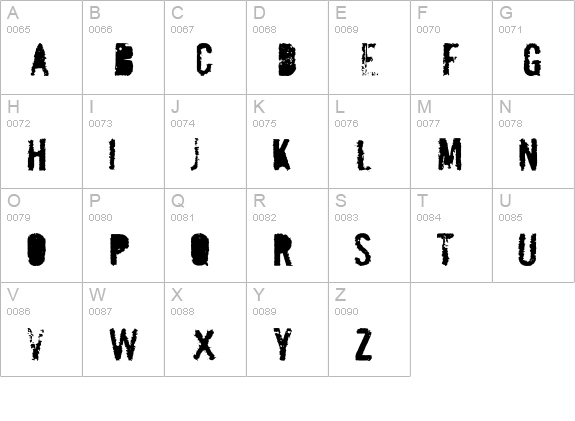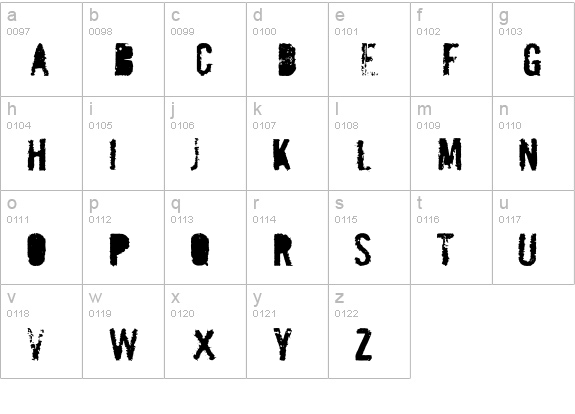
Introducing MailBomb font, a powerful and dynamic typeface that will explode your designs with creativity and impact. This font is the perfect choice for those looking to make a bold statement and leave a lasting impression. With its explosive letterforms and sharp edges, MailBomb font captures attention and demands to be noticed. Whether you're designing a poster, a logo, or a website, this font will bring an explosive energy that will captivate your audience. What makes MailBomb font even more exciting is that it is not only visually striking, but it is also free. That's right, this font is freely available to download at FontsMarket.com. Now you can access this explosive font without any cost, making it an incredible resource for designers, artists, and creatives looking to add an extra punch to their projects. With MailBomb font, you have the freedom to unleash your creativity without any limitations. Its versatile nature allows you to experiment with different styles, sizes, and layouts, ensuring that your designs stand out from the crowd. So why wait? Download MailBomb font for free today at FontsMarket.com and witness the explosive impact it will have on your designs. Get ready to make a statement and leave a powerful impression with this dynamic and bold typeface.